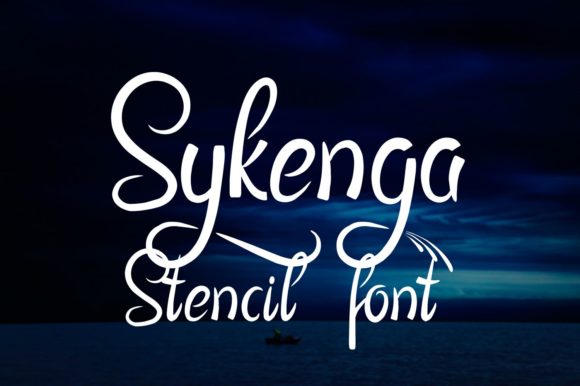
Are you tired of using the same old fonts for your design projects? Look no further than the stunning Sykenga Font, created by the talented Eva Barabasne Olasz. This script font family is the perfect addition to any collection, featuring beautiful swashes and a unique stencil design that will elevate your designs to new heights.
With Sykenga, you can give your projects a distinct and eye-catching look that is sure to impress. This font is perfect for anything from logos and branding to social media graphics and invitations. Its versatility allows it to be used in a variety of contexts, making it a must-have for any designer.